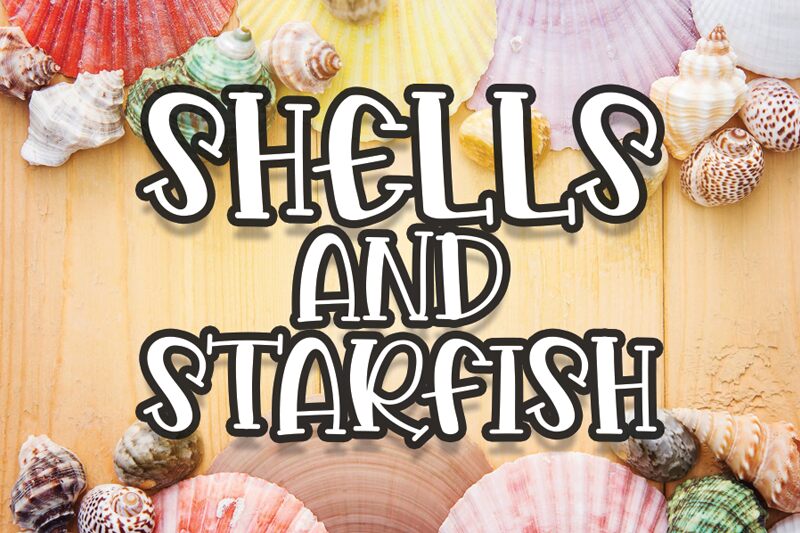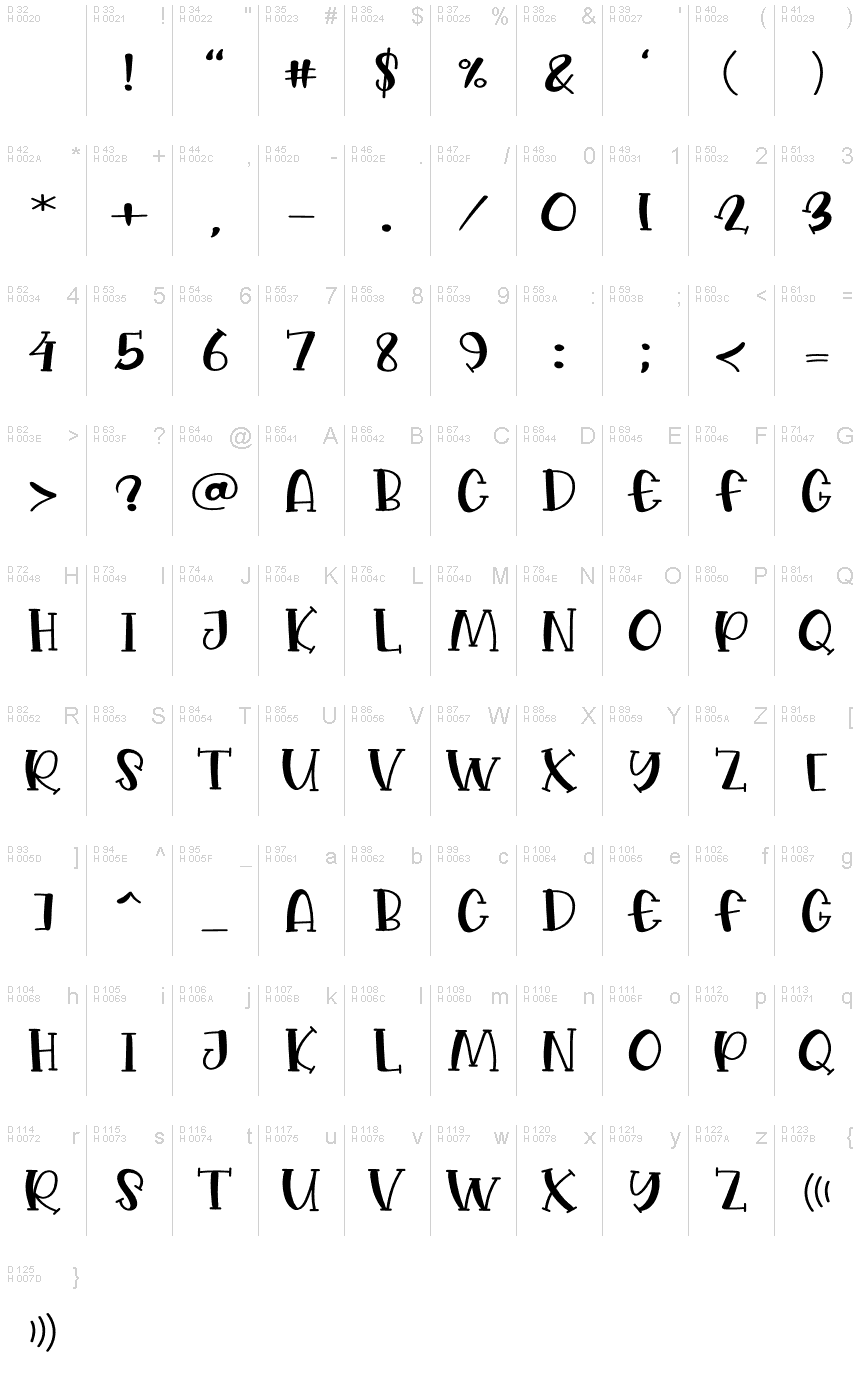
Shells And Starfish
the latest style letters are perfect for wall displays, wedding invitations, social media post logos,
advertisements, product packaging, product designs, labels, photography, watermarks, invitations, stationery,
and any project that requires taste handwriting.